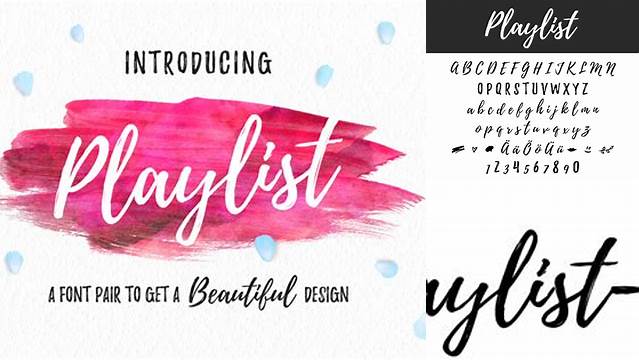
Hey guys! Are you looking for a cool, handwritten font to spice up your designs or projects? Well, you've come to the right place! We're diving deep into the world of Playlist Script fonts, available for free download on DaFont. This article is your ultimate guide, covering everything from what makes these fonts special, to how to snag them and use them effectively. So, buckle up, because we're about to embark on a typography adventure! Let's get started with a quick overview of what makes these fonts such a hit. Playlist Script fonts are all about that personal touch. They often mimic handwriting, making your text feel more authentic and engaging. Whether you're designing a logo, creating social media graphics, or working on a personal project, these fonts can add a unique flair. They're perfect for projects where you want to inject a sense of creativity and personality. In this article, we'll explore different aspects of these amazing fonts, from their origins to how they can be used effectively to enhance your projects. We'll also provide tips and tricks on selecting and using these fonts, ensuring your design stands out from the crowd. So, whether you're a seasoned designer or a newbie, there's something here for everyone. Let’s get started.
H2: What Makes Playlist Script Fonts Unique?
So, what's the big deal about Playlist Script fonts anyway? Why are they so popular, and what sets them apart from the myriad of other fonts out there? Well, let's break it down. First and foremost, these fonts are designed to replicate the look of natural handwriting. This immediately gives them a human touch that is often missing in more formal or digital-looking fonts. It’s like adding a personal note to your design. This handwritten appearance makes them incredibly versatile. Think about it: a logo designed with a script font feels more approachable and friendly, while a flyer or poster gains a more artistic and unique feel. They are particularly effective when used for projects where you want to evoke a sense of creativity, individuality, or a personal touch. One of the unique aspects is their inherent flexibility. Unlike some more rigid font styles, script fonts come in various styles. There are elegant, flowing scripts perfect for wedding invitations and luxurious branding. There are also more casual and playful scripts that are great for children’s books, social media posts, or informal projects. This range allows designers to choose the perfect font to match the tone and personality of their specific project. Many script fonts include stylistic alternates or special characters, such as swashes or ligatures. Swashes are decorative flourishes that can be added to the beginning or end of letters, while ligatures are connected letter combinations that create a more natural and fluid look. These extra features give designers even more creative control and can add an extra layer of elegance and sophistication to the design. In essence, Playlist Script fonts stand out because of their ability to add a human touch, their versatility in various design projects, and the extra detail they bring to any design.
H3: The Aesthetics and Appeal of Script Fonts
Let’s dive a bit deeper into the aesthetics and appeal of these fonts. They are visually captivating because they often mimic the fluidity and movement of handwriting. This dynamic quality draws the viewer's eye, making them an excellent choice for headings, titles, or any text element that needs to grab attention. The aesthetic appeal of these fonts is multifaceted, and it lies in their ability to inject personality and emotion into any design. When used correctly, script fonts add a sense of authenticity and creativity that is hard to achieve with more formal fonts. The personal touch that script fonts bring is invaluable. They can convey warmth, intimacy, and a sense of handmade quality. This is particularly effective in branding or marketing materials, where the goal is to build a strong connection with the audience. Brands often use script fonts to express their values or personalities, making them more relatable and trustworthy. The subtle imperfections often found in script fonts, such as slight variations in letter shapes or stroke thickness, also contribute to their charm. These imperfections make the text feel more human and less sterile, allowing for a more engaging experience. Script fonts have evolved over time and are still extremely popular. From traditional calligraphic styles to modern, edgy designs, the sheer variety of available script fonts is a testament to their enduring appeal. This diversity means that designers can always find a font that perfectly suits their project's aesthetic and message. When we talk about aesthetics, the design becomes more attractive and visually appealing. Whether you want to create a logo, create a social media graphic or even a wedding invitation, these fonts are really helpful.